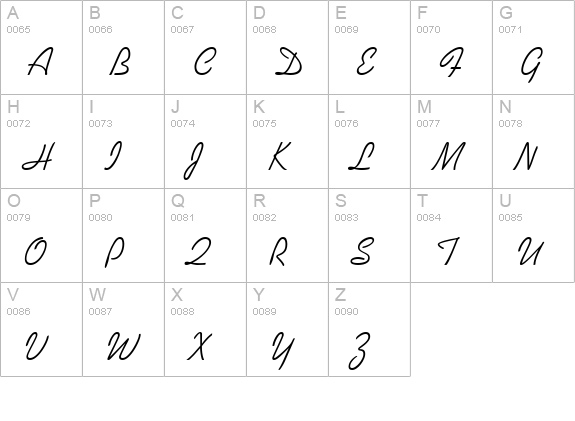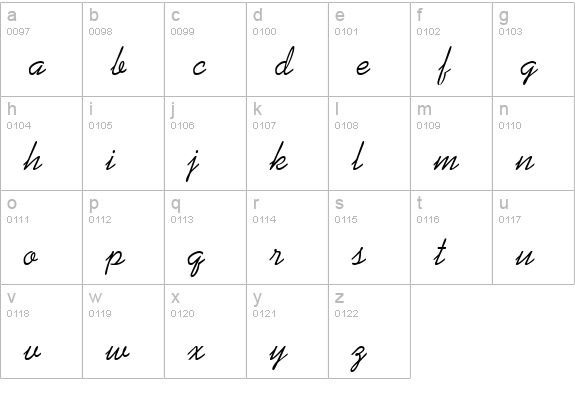
Prose Script SSi Font Details
Prose Script SSi font is a beautifully crafted typeface that exudes elegance and sophistication. Its flowing lines and delicate curves make it perfect for adding a touch of refinement to any project. Whether you're working on invitations, branding materials, or editorial designs, Prose Script SSi font will elevate your work to the next level. The best part? Prose Script SSi font is completely free to download at FontsMarket.com. This means you can add this stunning font to your collection without any cost. Don't miss out on this opportunity to enhance your designs with the timeless beauty of Prose Script SSi font. Download it now and start creating stunning typography that will leave a lasting impression.